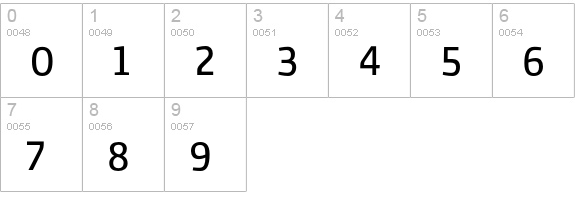
Vinkel Regular Font Details
Vinkel Regular is the standard, neutral variant in the Vinkel typeface family \xE2\x80\x94 well suited to general body text, paragraphs, and standard typographic work.
Vinkel Regular font is a versatile and modern typeface that exudes elegance and sophistication. With its clean lines and balanced proportions, this font is perfect for a wide range of design projects, from branding to editorial design. Vinkel Regular is designed to be both legible and stylish, making it a great choice for both print and digital applications. The best part is that Vinkel Regular font is available for free download at FontsMarket.com. You can easily access this high-quality font and use it in your projects without any cost. Don't miss out on the opportunity to enhance your designs with the beauty and versatility of Vinkel Regular font. Download it today and elevate your typography game!